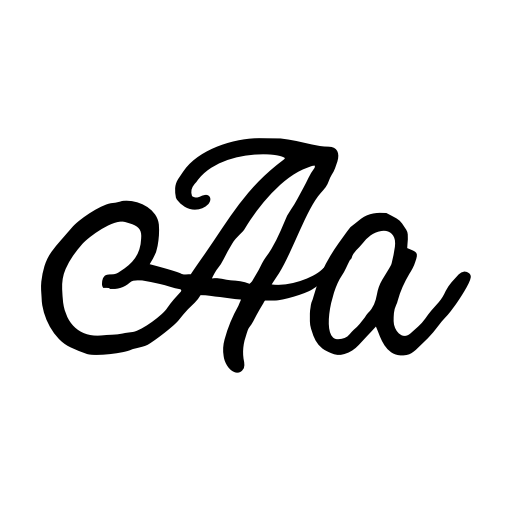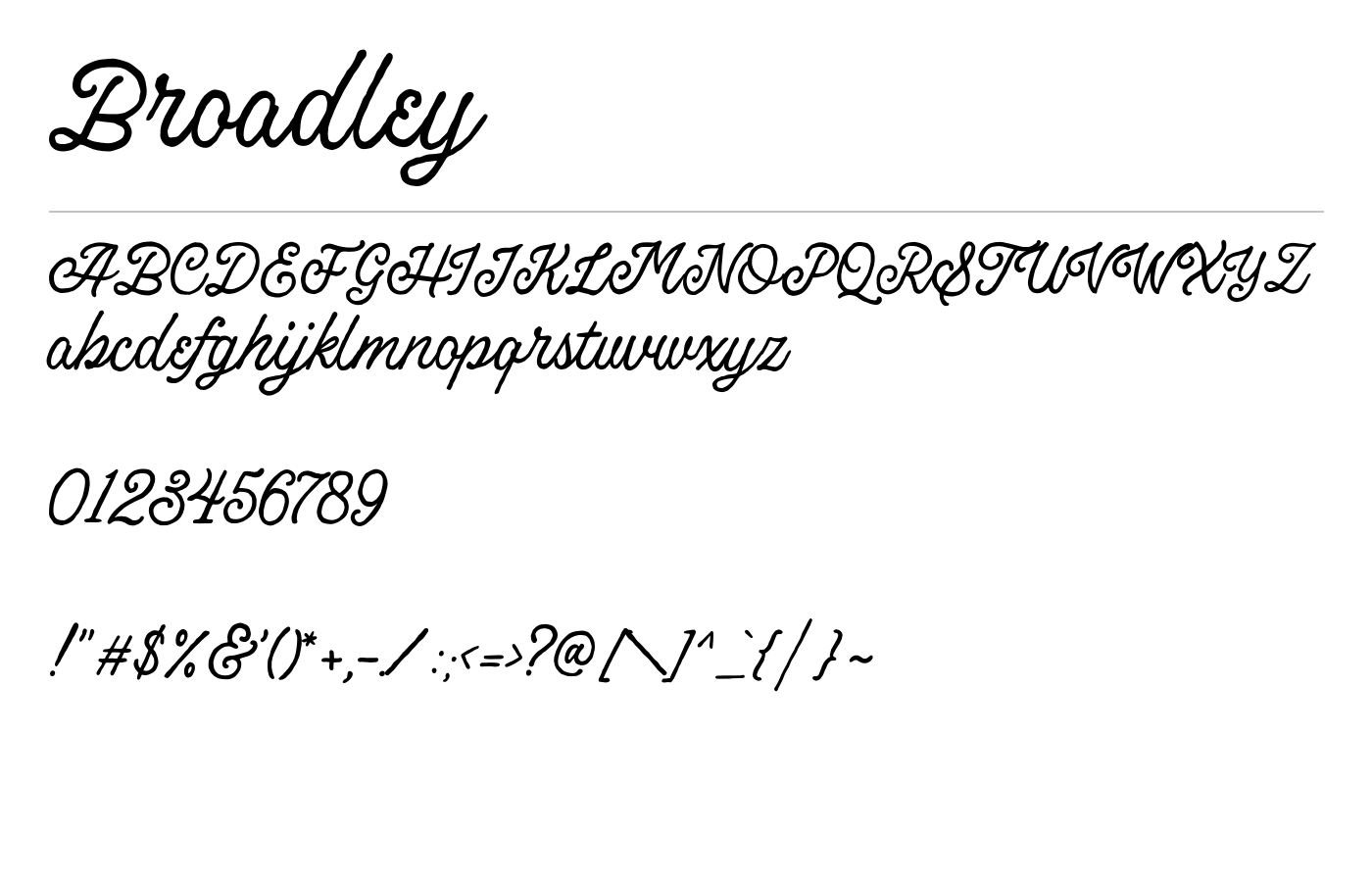
Broadley is a graceful script font featuring smooth, flowing strokes with a moderate contrast that evokes a charming and approachable feel. Its slender, slightly slanted letterforms and elegant curves make it perfect for adding a personal, handwritten touch to branding, invitations, and headlines where a warm, stylish impression is desired. This font works well for creative projects aiming to blend sophistication with an inviting, friendly character.
Broadley Font
About Broadley Font